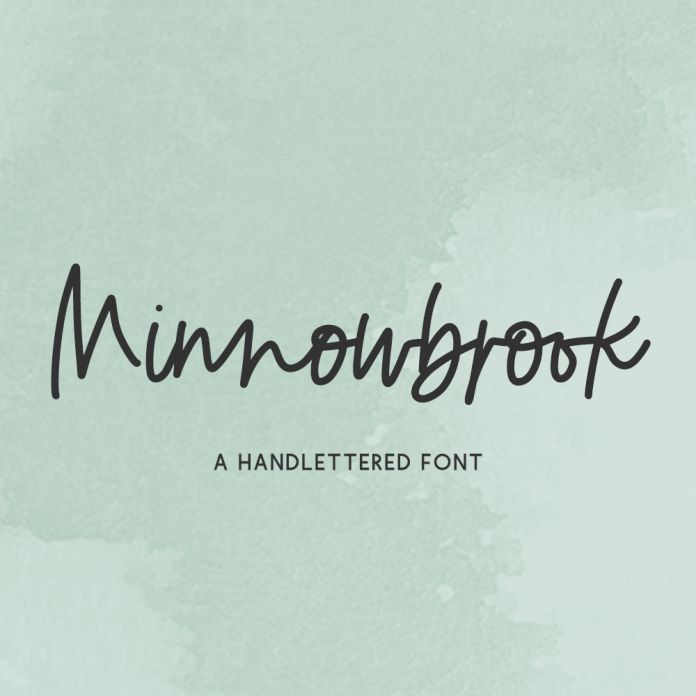
Minnowbrook Script Font
Introducing Minnowbrook, a modern handwriting font. Minnowbrook is best for: - modern projects with your Cricut or Silhouette machine, or your SVG design business - farmhouse decor and crafts - logos + branding - digital planners & apps like Goodnotes - website design + website accents, blog design - clean print design, like magazines + flyers - header elements that need handwritten touch - quote graphics for social media - graphic tee shirt design & other apparel Minnowbrook includes: - full upper + lowercase characters - numbers + punctuation - Western European Language Support - 9 ligatures - dd, ff, ll, mm, nn, oo, rr, ss, tt - PUA-encoding